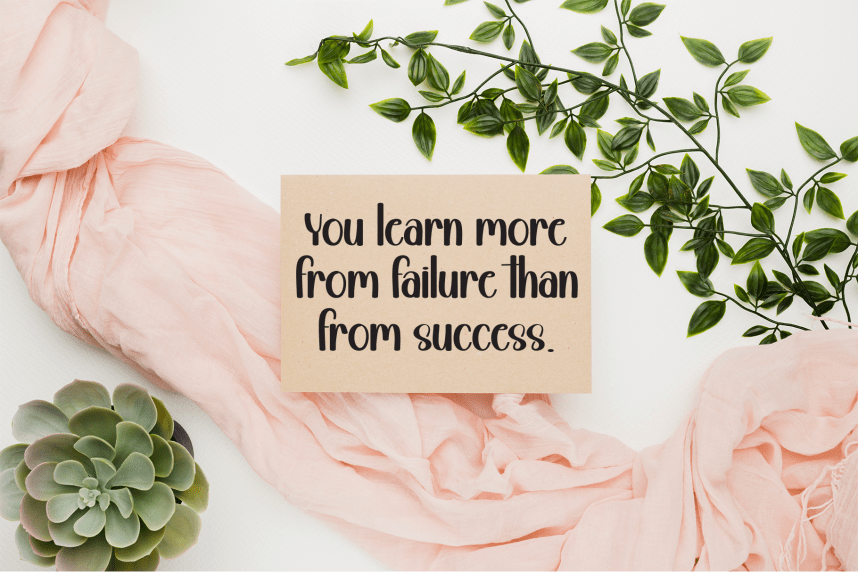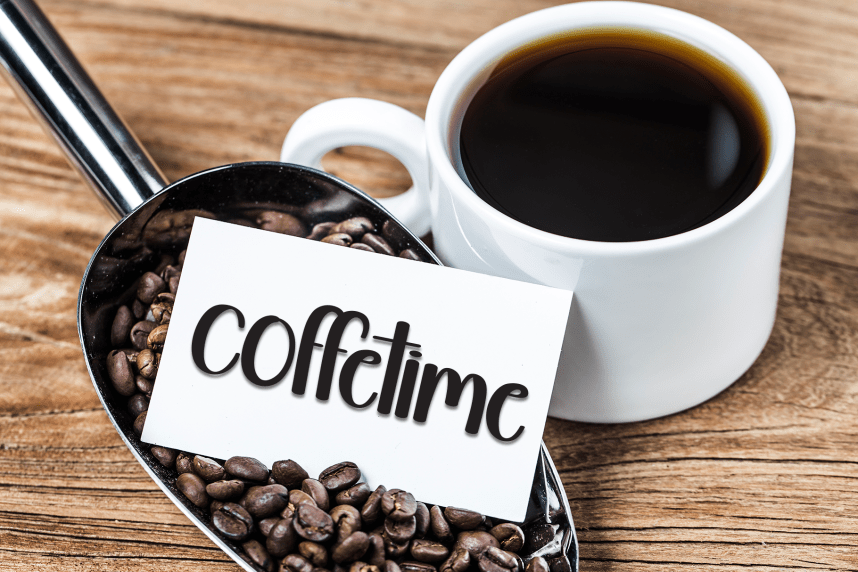
Magic Alphabet Playful Font
Magic Alphabet Playful Font is a sweet and friendly handwritten display font. Cute and fun, this font is ideal for writing wedding invitations, cards, or any other design that might need a playful touch!